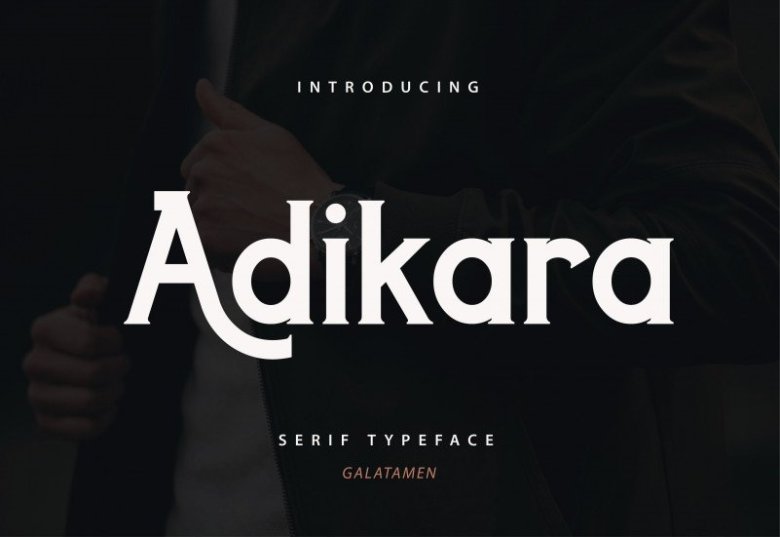
Adikara Font
It’s an elegant serif font with bold Style. It’s designed and shared by Galatamen. Masterfully designed to become a true favorite, this font has the potential to bring each of your creative ideas to the highest level!